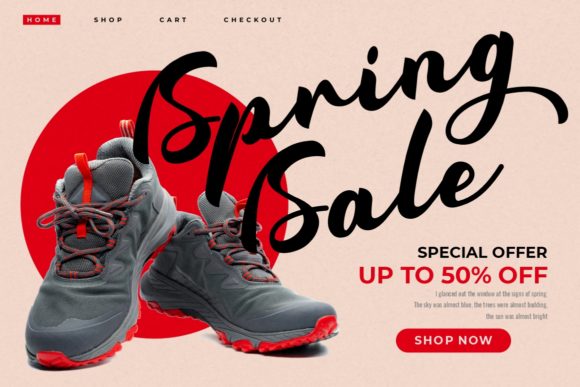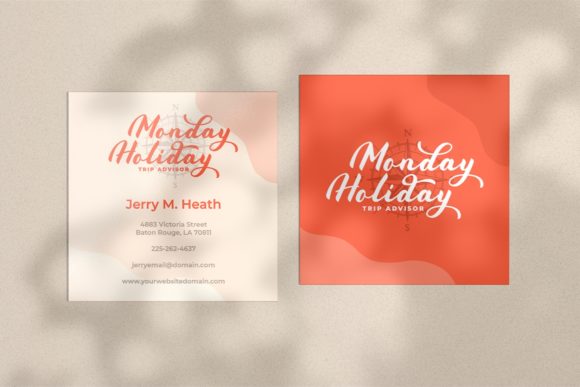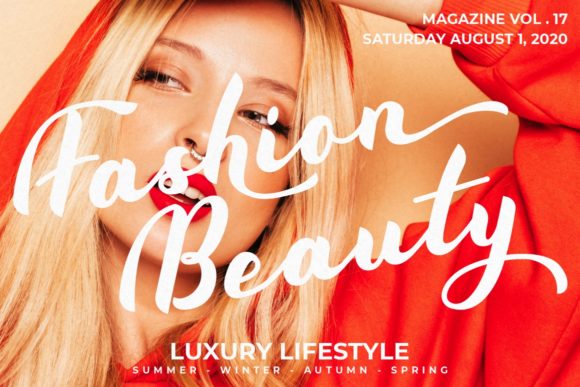
Introduction to Coldcoast Font
Coldcoast is a charming handwritten script.
This font is PUA encoded which means you can access all of the glyphs and swashes with ease It features a varying baseline, smooth lines, gorgeous glyphs and stunning alternates.
Key Features of Coldcoast Font
Why Choose Coldcoast Font?
Coldcoast Font offers exceptional quality and versatility, making it a valuable addition to your design toolkit. Whether you’re creating for personal projects or commercial use, Coldcoast Font delivers professional results.